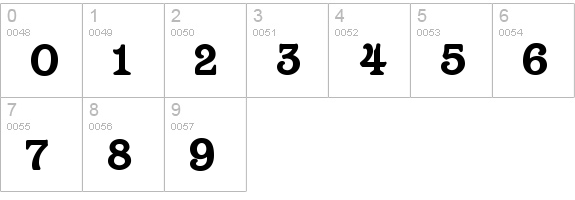
BarcelonaBold Font Details
BarcelonaBold is a modern and stylish font that exudes confidence and sophistication. With its bold and clean lines, this font is perfect for making a statement in your designs. Whether you're creating a poster, logo, or branding materials, BarcelonaBold will help you stand out from the crowd. The best part? BarcelonaBold is completely free to download at FontsMarket.com. So you can enhance your projects with this eye-catching font without breaking the bank. Don't miss out on the opportunity to elevate your designs with BarcelonaBold today!